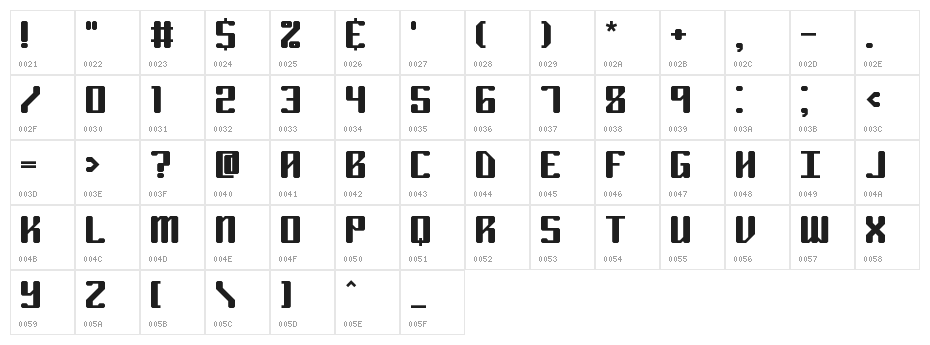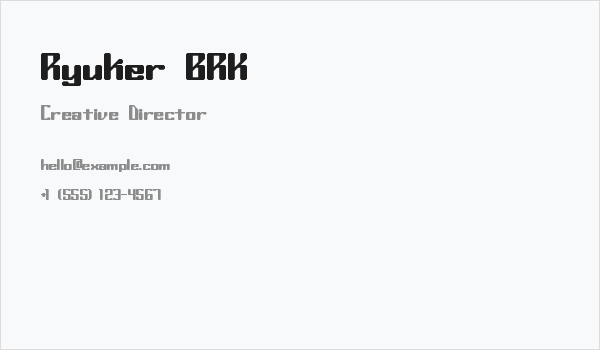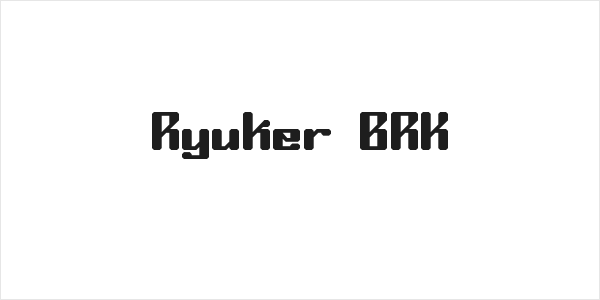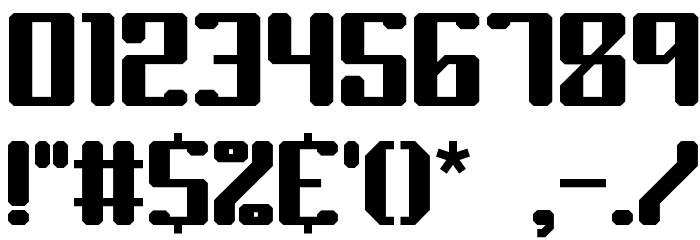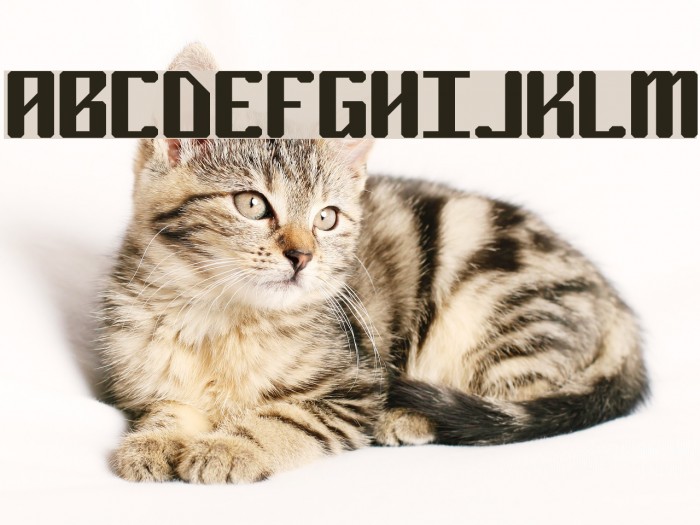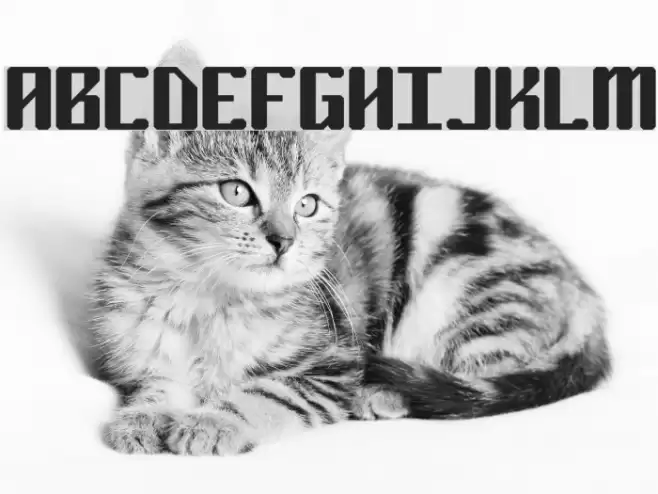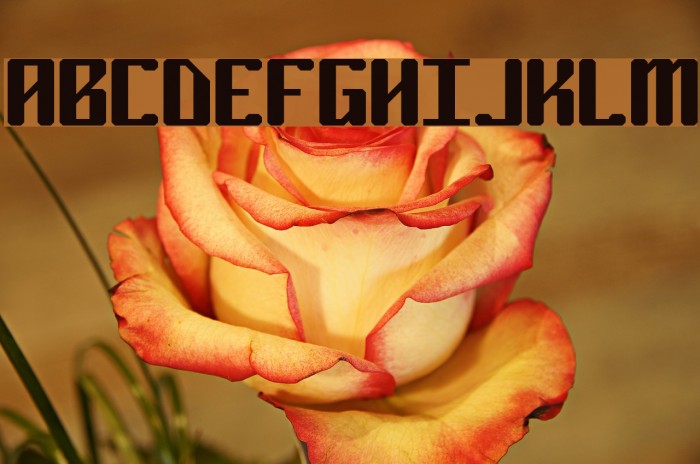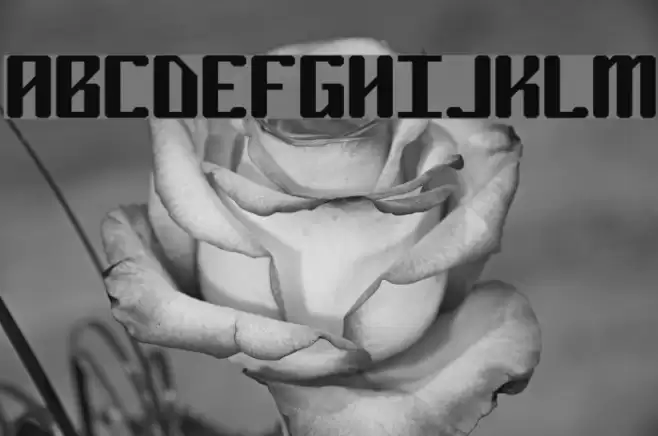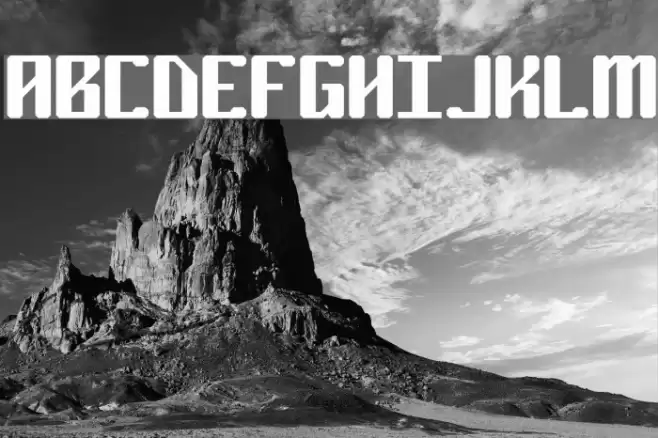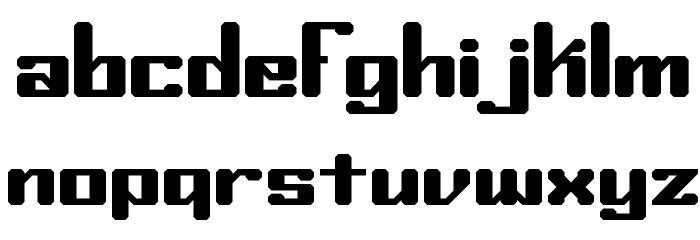
Ryuker BRK Font
Ryuker BRK Description
This font features a bold and geometric design with a strong presence. The characters are constructed with thick, uniform strokes that give it a robust and industrial feel. The angular and blocky shapes are reminiscent of digital or futuristic styles, making it stand out with its unique aesthetic. The uppercase and lowercase letters maintain a consistent width, contributing to a cohesive look. The numerals and special characters follow the same design principles, ensuring uniformity across all glyphs. This font's distinct style is suitable for projects that require a modern and edgy appearance.